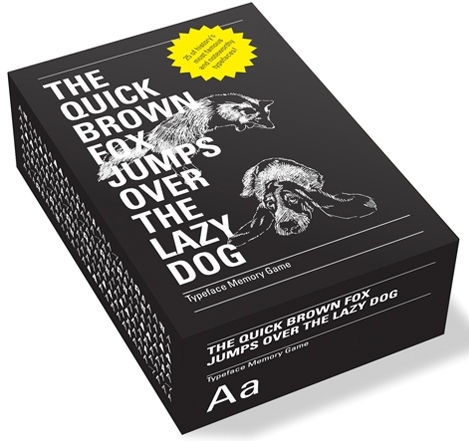
The Quick Brown Fox Jumps Over The Lazy Dog: Typeface Memory Game
For everyone who wishes to enhance their skills at recognizing typefaces in a playful manner.
A typeface memory game. With twenty-five pairs of cards, each presenting a different type family, this is a very stylish and interesting typographic concentration game. The kit includes a typographical glossary with the main terms used in typography as well as a text about the evolution of type design, locating in history each one of the fonts used in the game.
F bio Prata and Fl via Nalon are founders of ps.2 arquitetura + design, a S o Paulo, Brazil based design studio that creates and develops graphic design projects for print and digital media. They are mainly involved on projects within the cultural field: visual identity, books, catalogs, promotional items and websites. They have been exhibited and published in Brazil, France, England, Germany and Japan, among others, and are winners of two red dot design awards 2009.